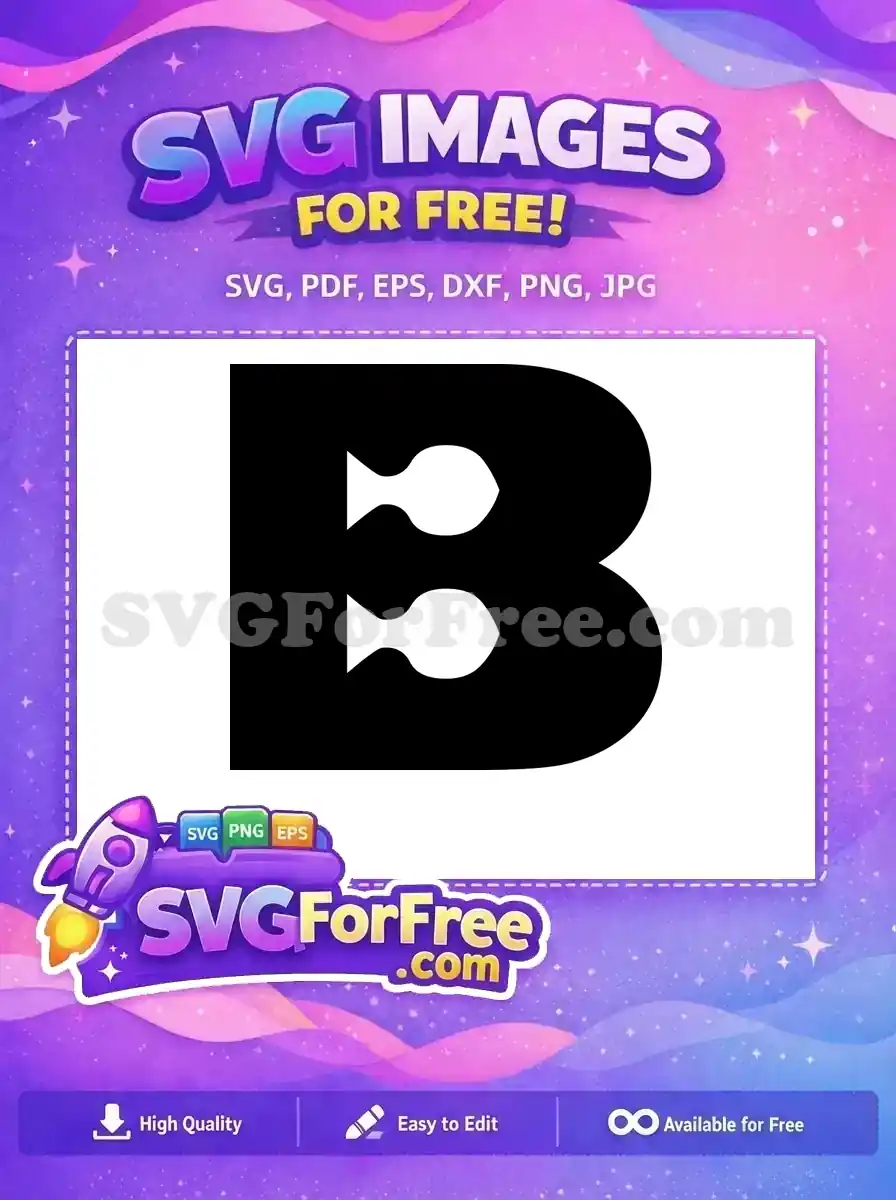
Free Minnie Mouse Font Letter B Free Black Bow Silhouette Disney Alphabet Free SVG – Instant Download
Block letter B with mouse head cutouts, a creative negative space free vector.
Free Minnie Mouse Font Letter B Free Black Bow Silhouette Disney Alphabet Free SVG